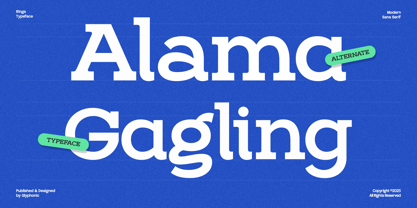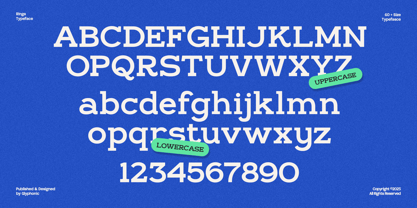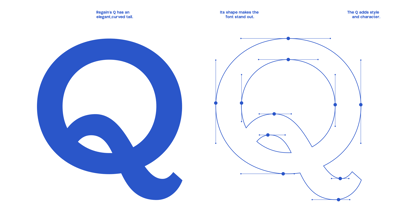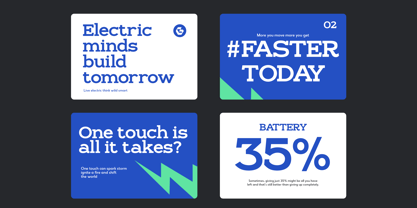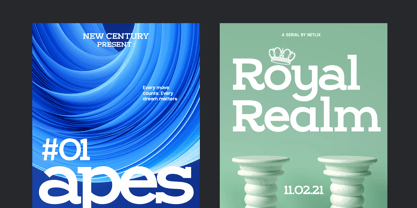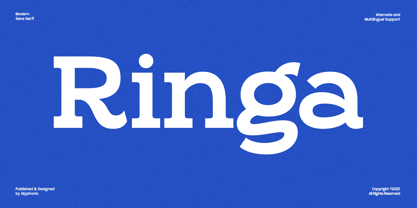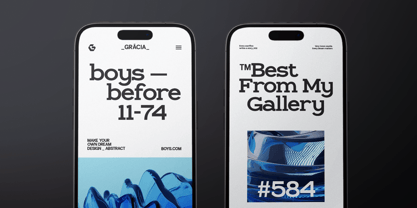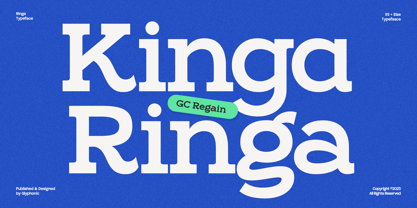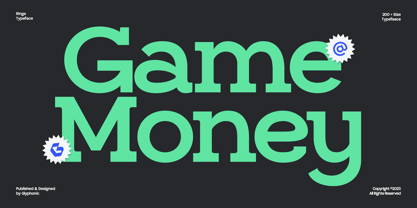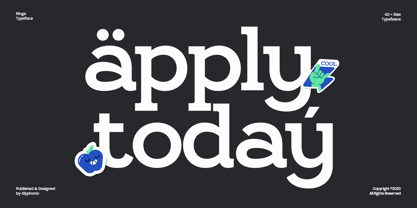
GC Ringa
by Onyx Studio
The GC Ringa Font Family was designed by Muhammad Hafiizh Solana and published by Onyx Studio. GC Ringa contains 2 styles and family package options. More about this family
GC Ringa is a bold display slab serif font that blends vintage strength with modern confidence. Perfectly suited for headlines, branding, logos, packaging, and editorial layouts, it’s crafted to leave a lasting impression. With its thick slab serifs, solid structure, and impactful letterforms, GC Ringa brings personality and a commanding presence to any design. Whether you're designing for fashion, lifestyle, or bold artistic visuals, this typeface offers both versatility and unapologetic style. Features: + Uppercase & Lowercase + Ligatures & Stylistic Alternates + Numbers & Punctuation + Multilingual Support Make your design bold, refined, and timeless with GC Ringa.